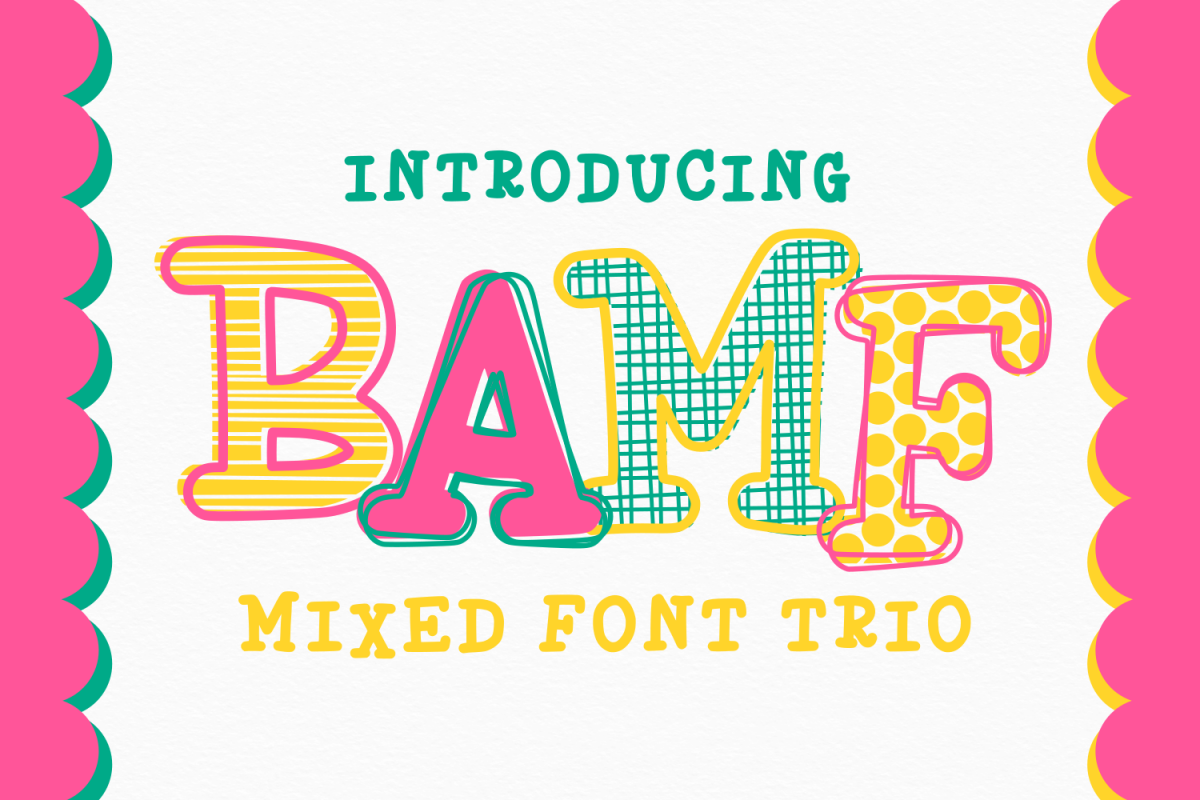
BAMF - A Crazy Font!
BAMF is a fun font trio with 3 patterns, 2 outline types, and a solid. It's PERFECT for layering and creating truly unique designs. Please note, that this font works best with programs that allow you to move around fonts- so that the designs can be layered correctly. A good free alternative to do this is Inkscape. Designers: For BEST results, use the svgs. They were saved prior to converting to font- so they will be a little higher quality with crisper lines.